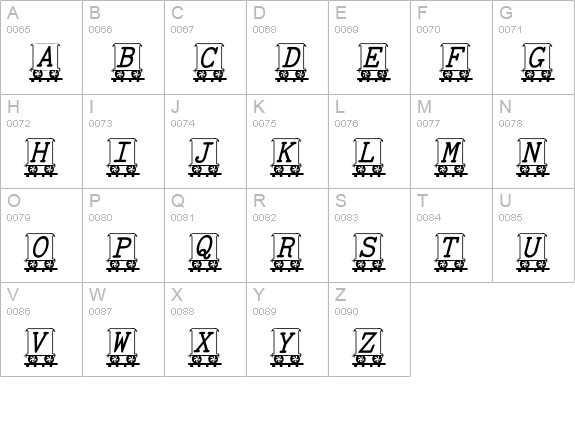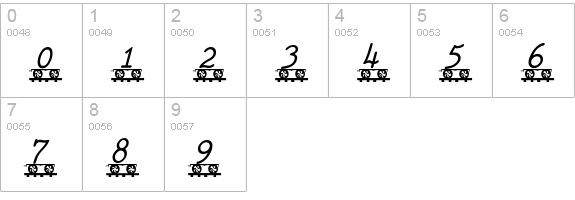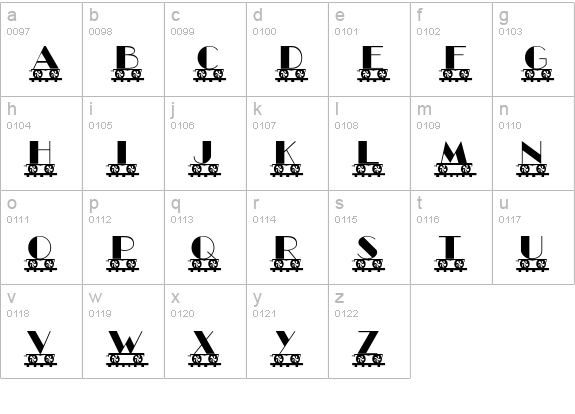
LetterTrain Italic Font Details
LetterTrain Italic is a distinctive, italic variant in the LetterTrain typeface family \xE2\x80\x94 well suited to design and typography projects.
Introducing LetterTrain Italic, a captivating and versatile font that effortlessly combines elegance with a touch of playfulness. This font is perfect for adding a unique and sophisticated flair to your projects, whether it's designing eye-catching logos, creating stunning invitations, or bringing life to your social media graphics. LetterTrain Italic boasts beautifully crafted letterforms that gracefully flow together, creating a harmonious and visually pleasing composition. Its italicized style adds a sense of movement and dynamism, making it ideal for conveying a sense of energy and creativity. Each character is meticulously designed with precise details, ensuring a flawless look no matter the size or scale of your design. One of the best features of LetterTrain Italic is that it is available for free! That's right, this stunning font can be yours without spending a dime. Simply head over to FontsMarket.com, a reputable and trusted platform for font enthusiasts, and download LetterTrain Italic to elevate your design projects to new heights. With LetterTrain Italic, you have the freedom to explore endless possibilities. Its versatility allows it to seamlessly adapt to various design styles and purposes, making it a must-have font for any creative individual or professional designer. Whether you're aiming for a contemporary and edgy look or a classic and timeless appeal, LetterTrain Italic is the perfect choice to add that extra flair and finesse. Don't miss out on the opportunity to enhance your design arsenal with this remarkable font. Download LetterTrain Italic for free at FontsMarket.com and unlock a world of creativity and endless design possibilities. Elevate your projects and captivate your audience with the enchanting allure of LetterTrain Italic.